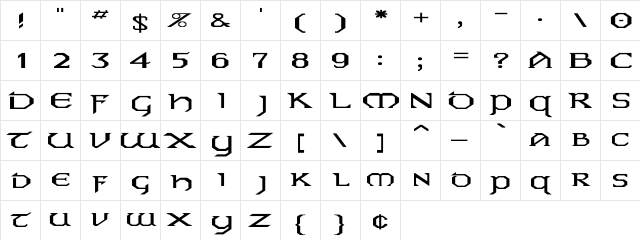
Eire Ex Regular
Design Context for Eire Ex Typeface
Eire Ex is a composed and adaptable typeface that performs quietly and consistently across a wide range of design contexts.